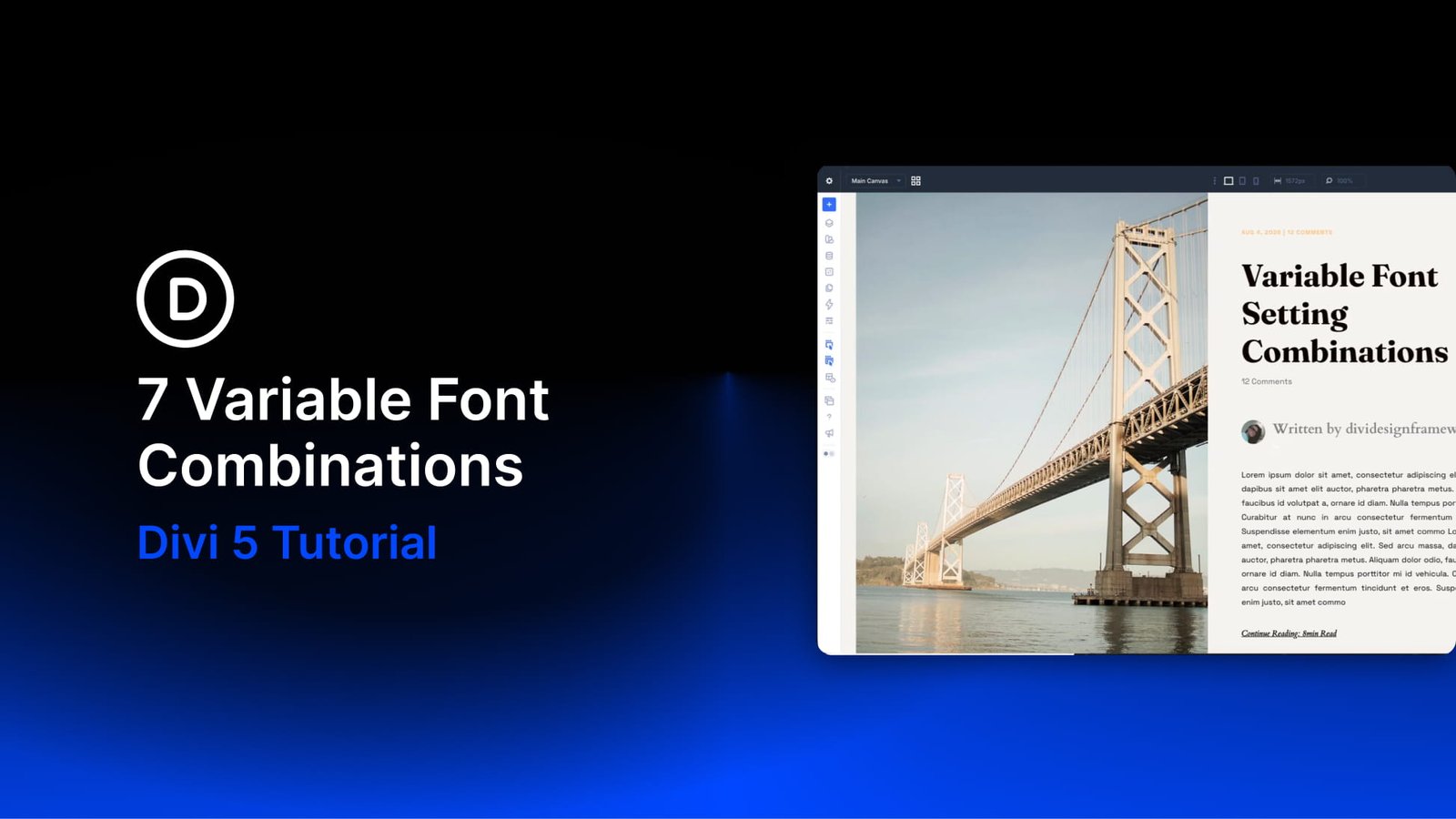
7 Variable Font Combinations (New Feature)
Picking a font used to be a short decision. You chose the font, picked a weight, adjusted the size, and moved on. Variable fonts change that workflow. One font can include a range of adjustable axes, and each axis changes something about how the letters are drawn.
Inside Divi 5, those axes become visual controls. Depending on the font you choose, you can stretch letters wider, squeeze them narrower, lean them forward, round their corners, adjust stroke density, or fine-tune a weight that sits between two traditional font styles. The real value appears when you combine settings instead of moving one slider at a time. A plain sans can become sharper and more editorial. The same font can become softer and friendlier. A serif can use its expressive axis for headlines, then turn that personality down for body text.
In this post, we’ll walk through 7 variable font combinations you can try in Divi 5. Each example uses a specific font, a specific set of axis values, and a practical design context so you can see how the settings work together.
What A Variable Font Actually Is
A traditional font family is usually made from separate font files. Regular is one file, Bold is another, Light is another, and italic styles may use separate files too. If you want several weights on one site, the browser may need to load several font files, each with a fixed style.
A variable font works differently. It stores a range of styles inside one font file. Instead of choosing only Regular, Medium, Bold, or Black, you can move along the available range and choose the exact value that fits the design.
That flexibility is the point. You get more typographic range from one typeface, and you can make smaller decisions than a static font family usually allows.
The Ranges Are Called Axes
Each adjustable range inside a variable font is called an axis. An axis controls one part of the font’s design, and each one has a short tag you may see in font documentation.
Common axes include:
• Weight: Controls how light or heavy the strokes are.
• Width: Makes the letters narrower or wider.
• Slant: Tilts the letters without necessarily switching to a separately drawn italic style.
• Optical Size: Adjusts the font for the size it is displayed at, usually making smaller text more readable and larger text more refined.
Font designers can also create custom axes. One font might let you round corners. Another might change the counters inside the letters. Another might add a playful morph, a handwritten feel, or a pixel-like structure. That is why variable fonts are not all the same. The font you choose determines which controls are available.
Not Every Font Has The Same Axes
Some variable fonts only include a Weight axis. Others include Weight, Width, Slant, Grade, Roundness, or more unusual font-specific controls.
That matters inside Divi 5 because the builder only shows the controls the selected font supports. If a font does not include a Width axis, you cannot make it condensed with a variable font slider. If it does not include Roundness, there will be no roundness control to adjust.
That is why every example below names the font and the axis values together. The settings only work when the font includes the axes underneath them.
How Divi 5 Handles Variable Fonts
Divi 5 supports the latest Google Fonts collection, including variable fonts and the controls they provide.
When you choose a supported Google variable font inside a text option group, Divi checks which axes that font includes and shows the matching controls in the builder. A simple variable font may give you one slider. A more advanced one may expose several.
For example, Google Sans Flex gives you controls such as Weight, Width, Slant, Rond, and Grade. A display font may expose one unusual axis that changes the whole personality of the typeface.
The important part is that you do not need to memorize every axis a font supports before you start. Choose the font, open the relevant text option group, and Divi shows the available controls for that font.
The same Divi 5 release also added new base-level styling options to title and body text groups. These settings work with variable and non-variable fonts, and they help you control how text behaves inside the layout. A few of the most useful additions include:
• Text Columns: Create magazine-style text layouts without splitting copy into separate modules.
• Drop Caps: Add and style large first letters in body text.
• Text Direction: Create vertical text treatments.
• Stroke Position: Control whether text strokes sit centered or outside the letters.
• Capitalization: Apply more specific capitalization styles.
• Paragraph And List Spacing: Control spacing between paragraphs and list items.
Before you go back to the font dropdown, open the variable controls on the font you already chose. You may be able to create the hierarchy, tone, and variation you need without switching typefaces at all.